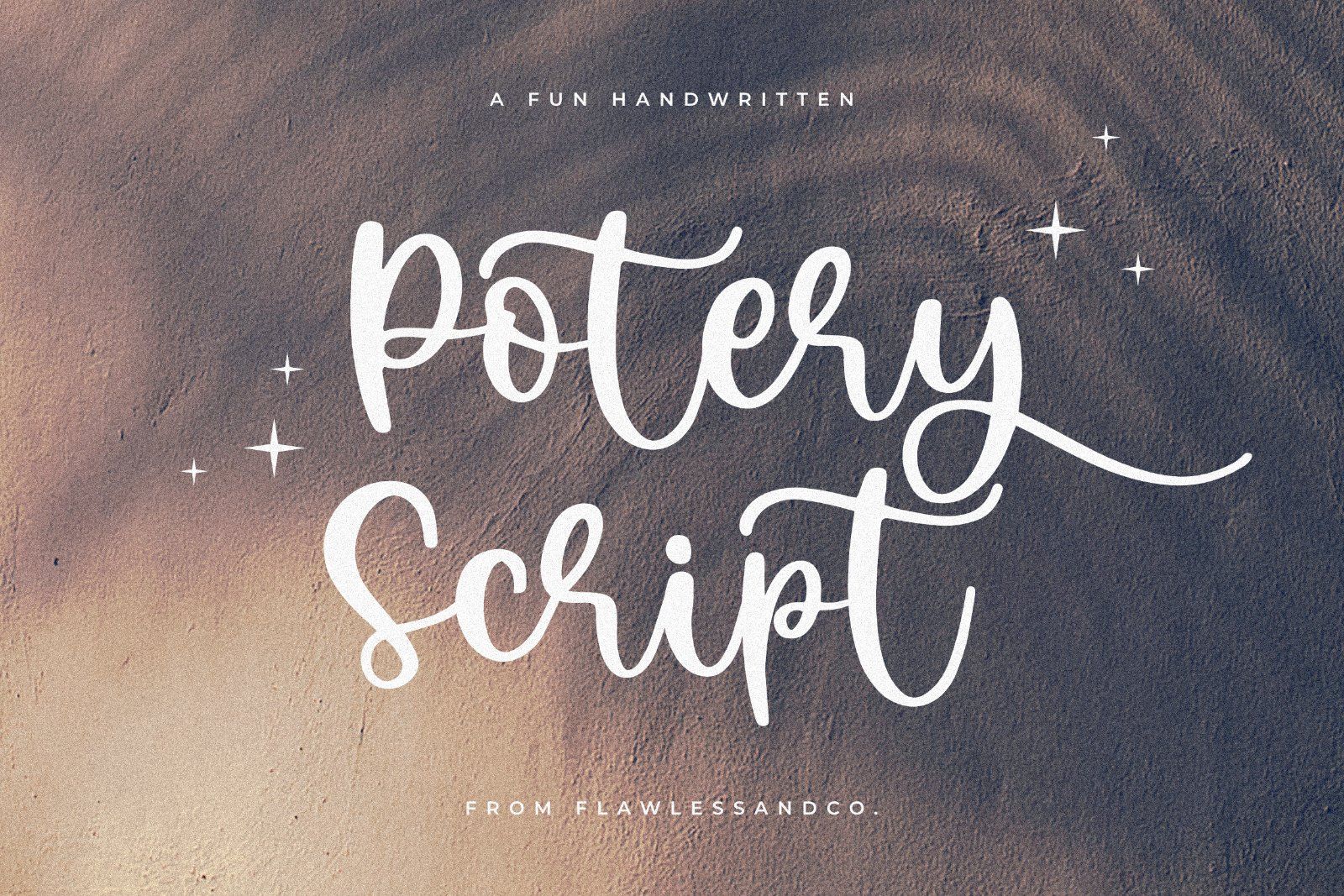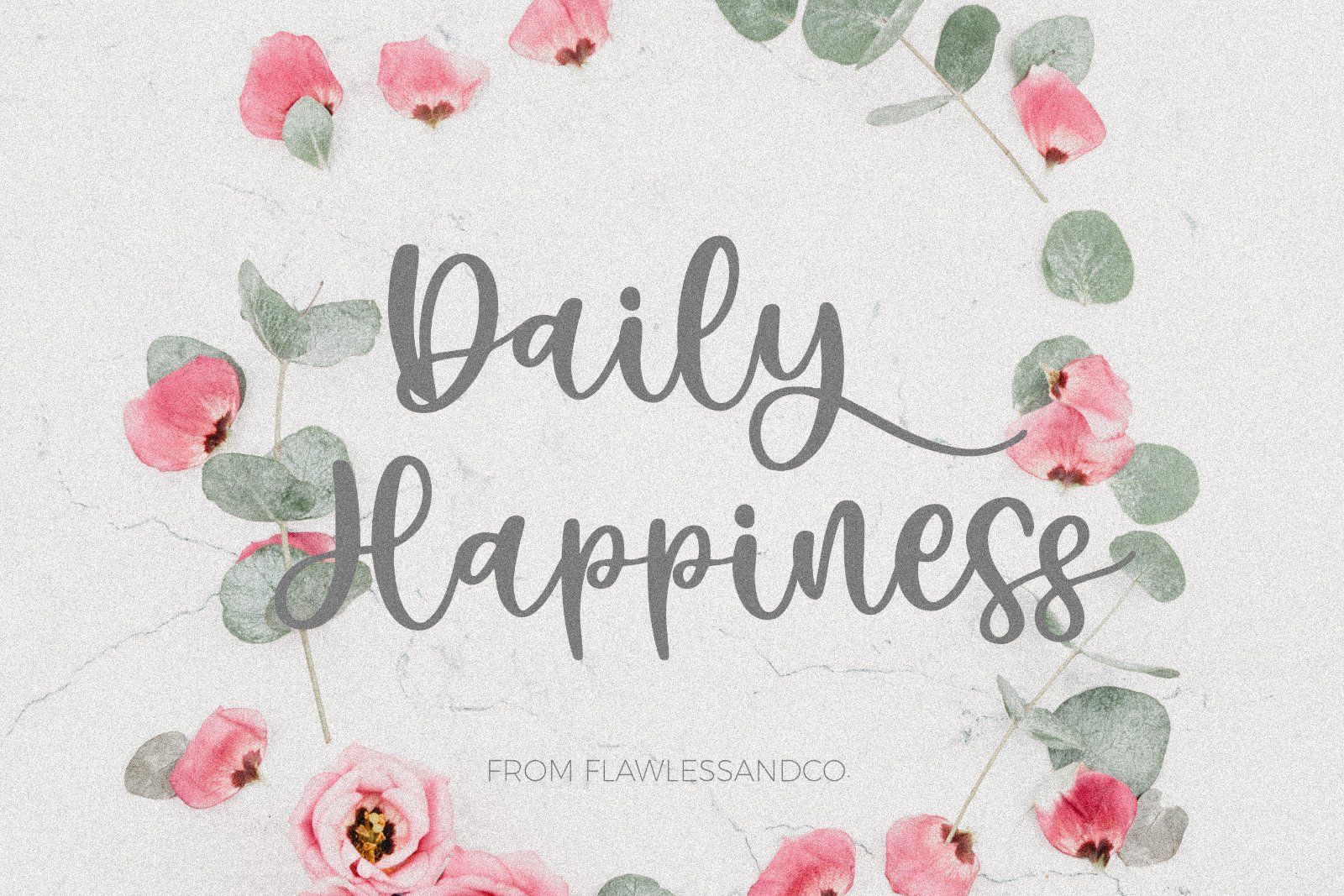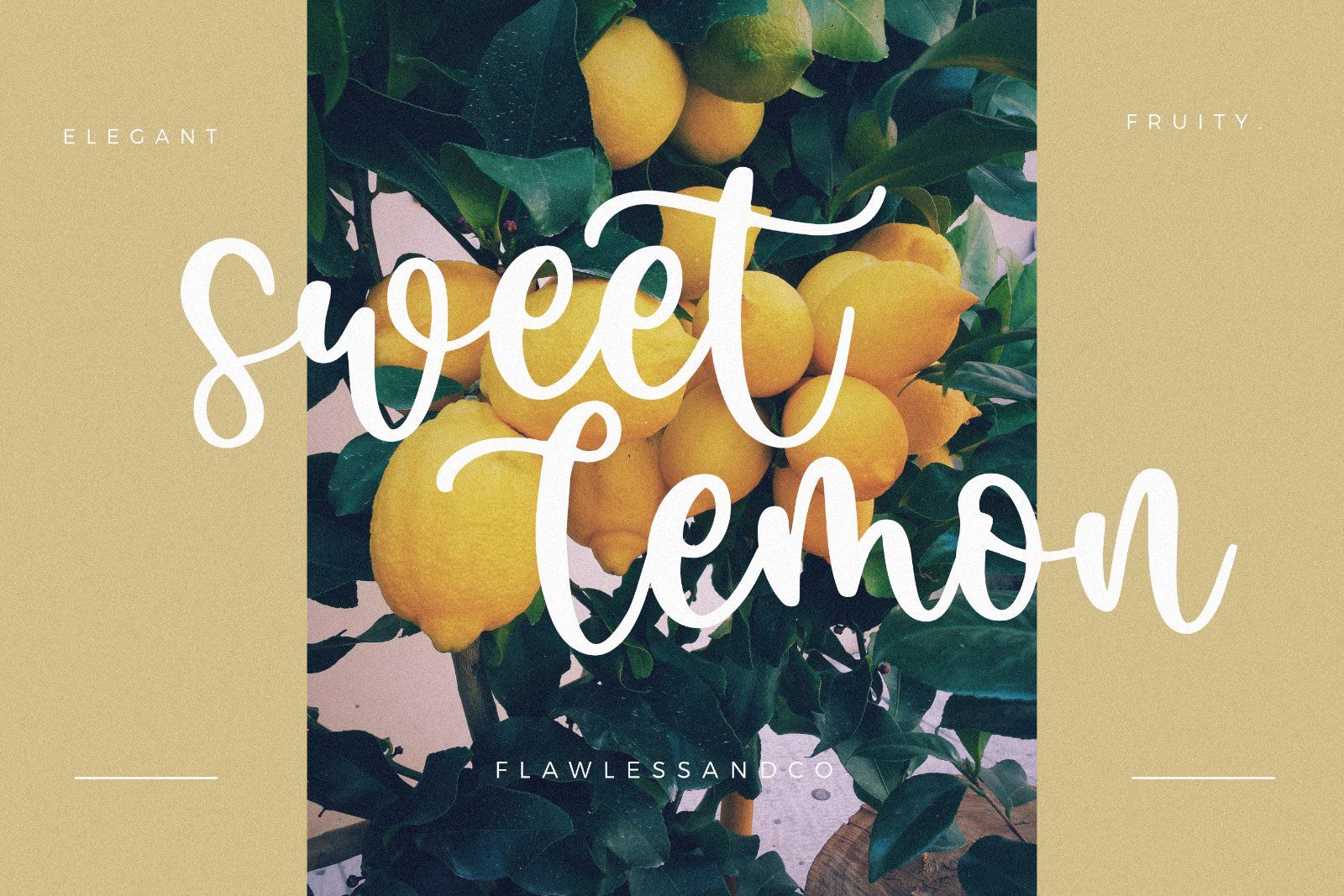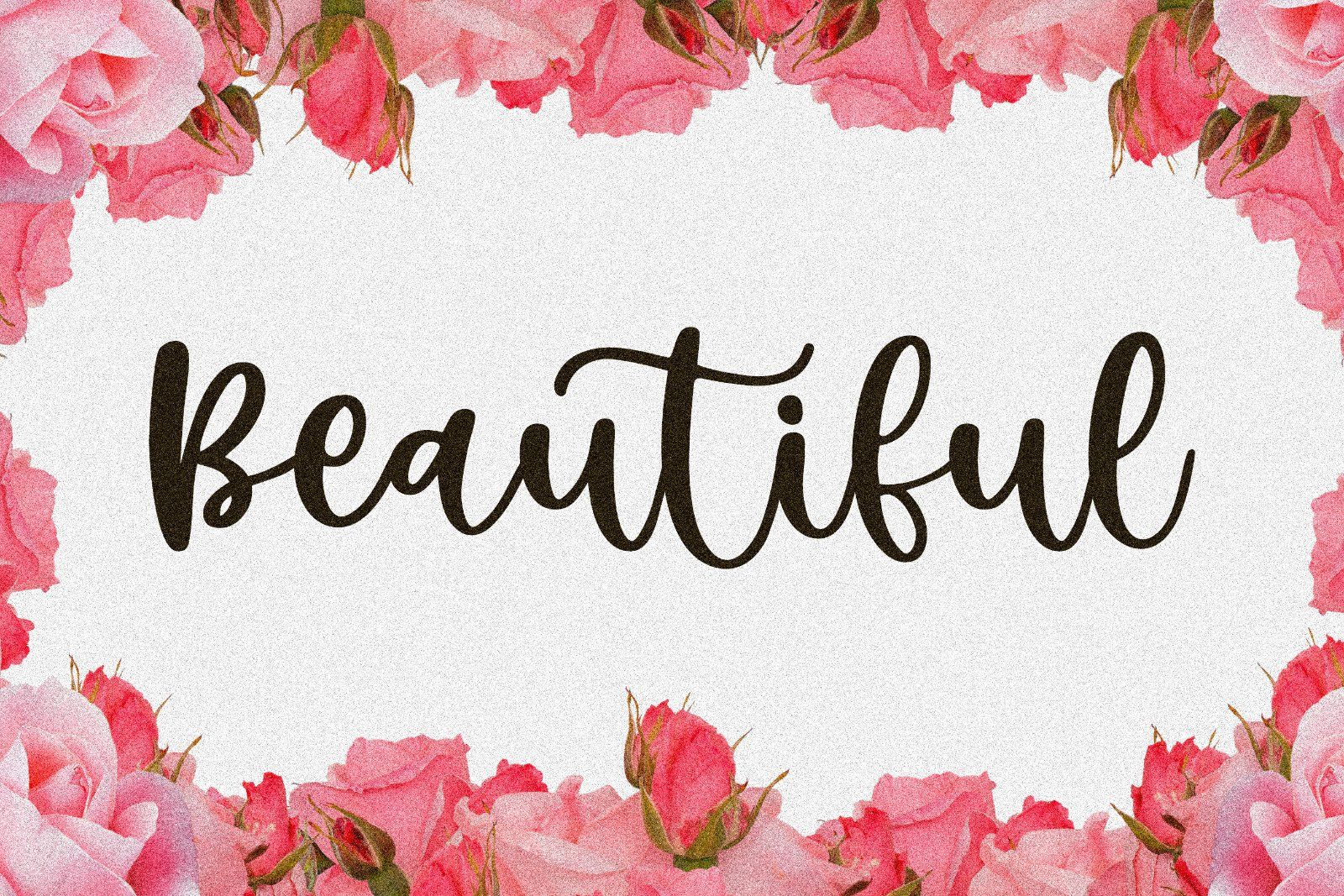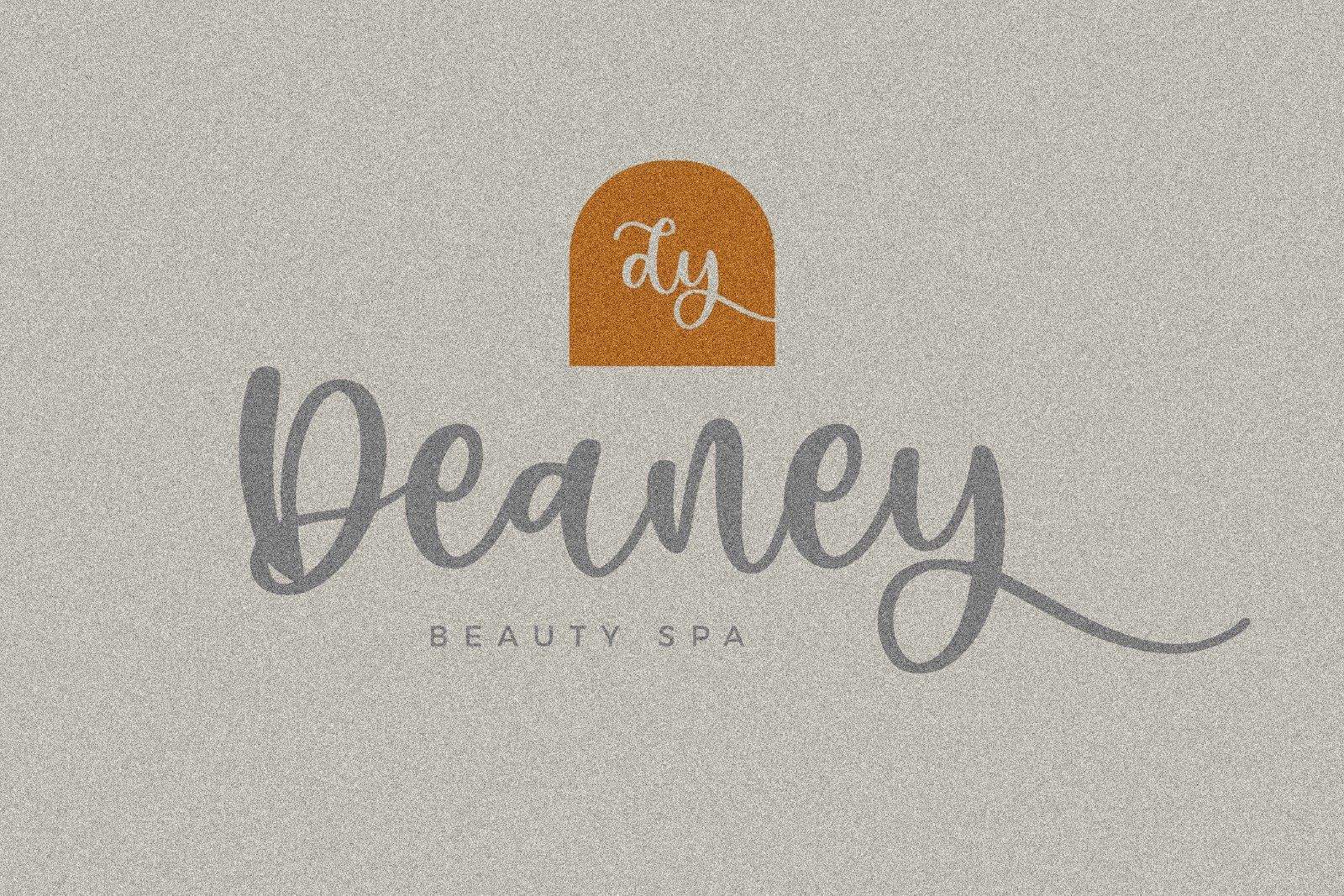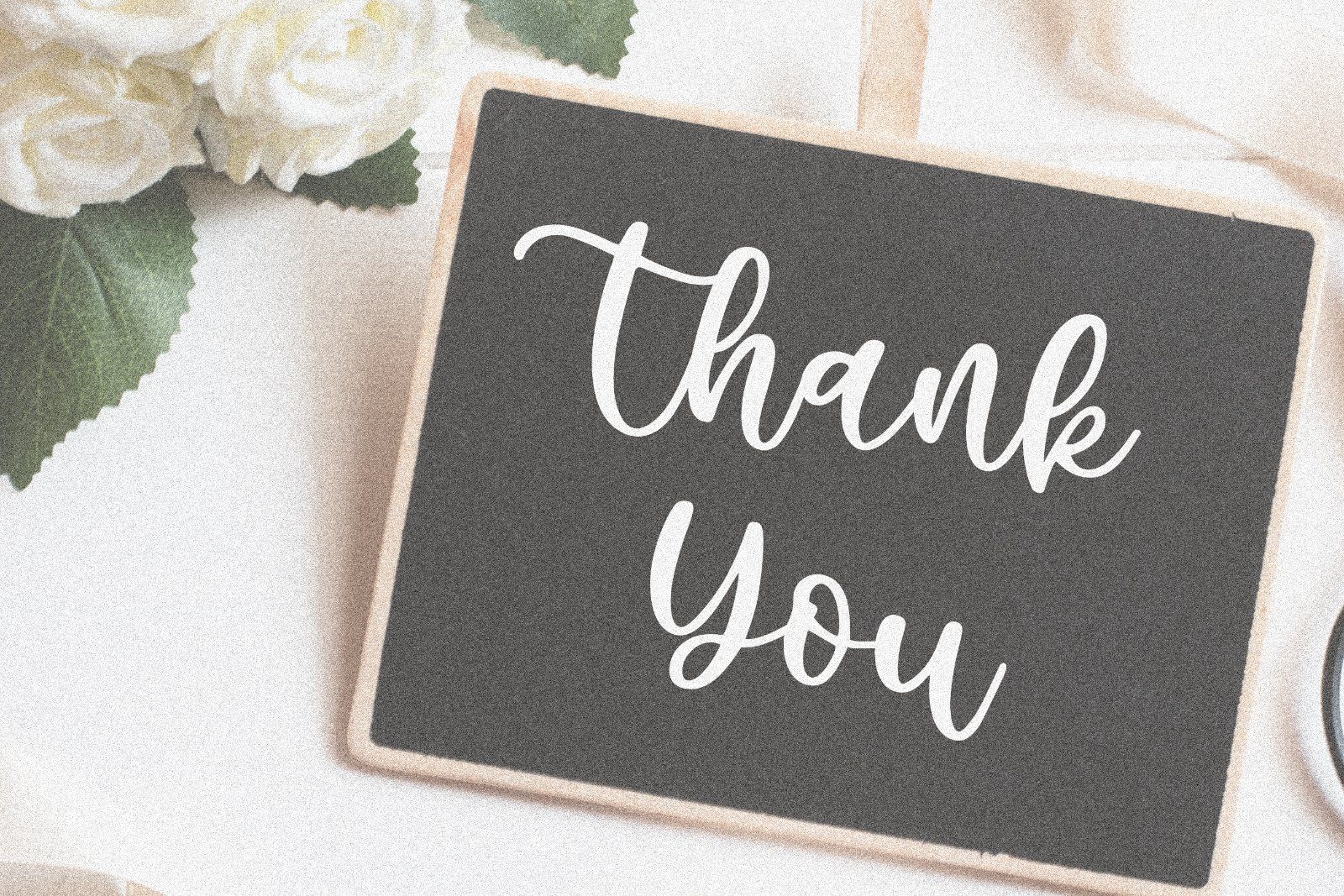
Potery Script Font is a handcrafted script, this style gives a feel of Girly, modern, Suitable for any graphic designs such as branding materials, t-shirt, print, business cards, logo, poster, t-shirt, photography, quotes .etc
• Uppercase alphabet A-Z
• Lowercase alphabet a-z
• Alternate Character
• Numbers 0-9
• Some punctuation